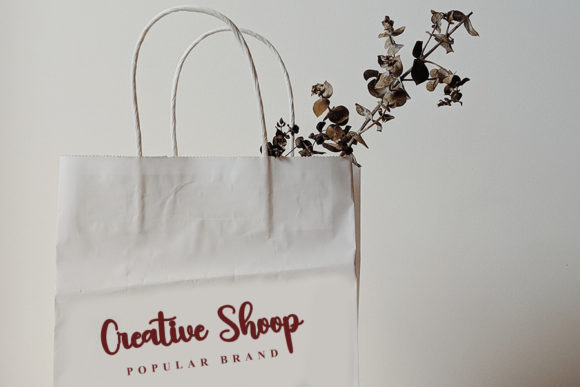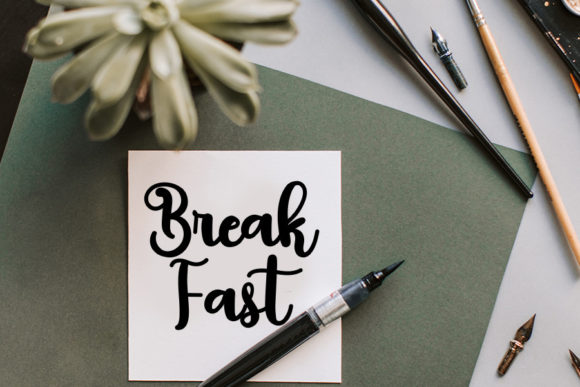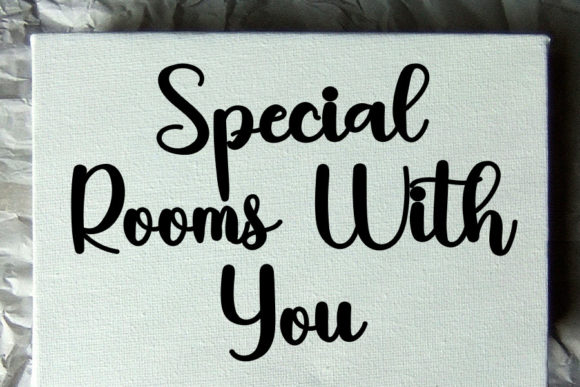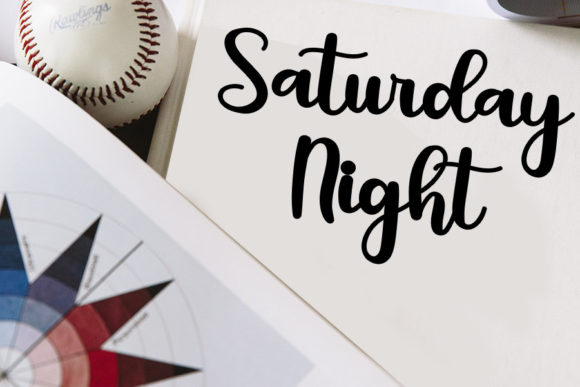
About Staycation Font
Staycation is a versatile and charming handwritten font that adds a touch of authenticity and elegance to a wide range of creative projects. With its delicate and well-rounded design, this font is a perfect choice for various applications, allowing you to create designs that stand out and resonate with your audience.
Wedding invitations come to life with the graceful and inviting strokes of Staycation. The font’s handwritten style adds a personal and romantic touch to these special occasion invitations, setting the tone for a memorable event. Whether you’re designing for a rustic outdoor wedding or an intimate indoor celebration, Staycation’s authenticity enhances the overall aesthetic of the invitation suite.
For birthday cards and greetings, Staycation’s delicate curves and smooth lines bring a sense of warmth and sincerity. The font’s handwritten appearance makes recipients feel valued and appreciated, as if each card were crafted with care. Whether you’re creating cards for friends, family, or loved ones, Staycation’s well-rounded letters convey a sense of thoughtfulness and connection.
Staycation is also a great choice for personal branding and elegant logos. Its authentic typography adds a human touch to branding, creating a sense of approachability and genuineness. Whether you’re a freelancer, a small business owner, or an entrepreneur, using Staycation in your logo or branding materials helps establish a strong visual identity that resonates with your target audience.
The font’s versatility extends to various design projects, such as elegant logos that represent sophistication and creativity. Its handwritten charm pairs well with a variety of design elements, making it suitable for diverse industries and niches. Whether you’re creating packaging, product labels, or social media graphics, Staycation’s well-rounded letters elevate the overall visual appeal of your designs.
Staycation’s authenticity shines through in every stroke, making it a valuable tool for adding a personal touch to your projects. Its delicate and well-rounded appearance gives your designs a humanistic quality that resonates with people on a deeper level. Whether you’re working on a crafty DIY project, professional branding, or heartfelt greetings, Staycation’s handwritten elegance enhances the overall impact of your creations.